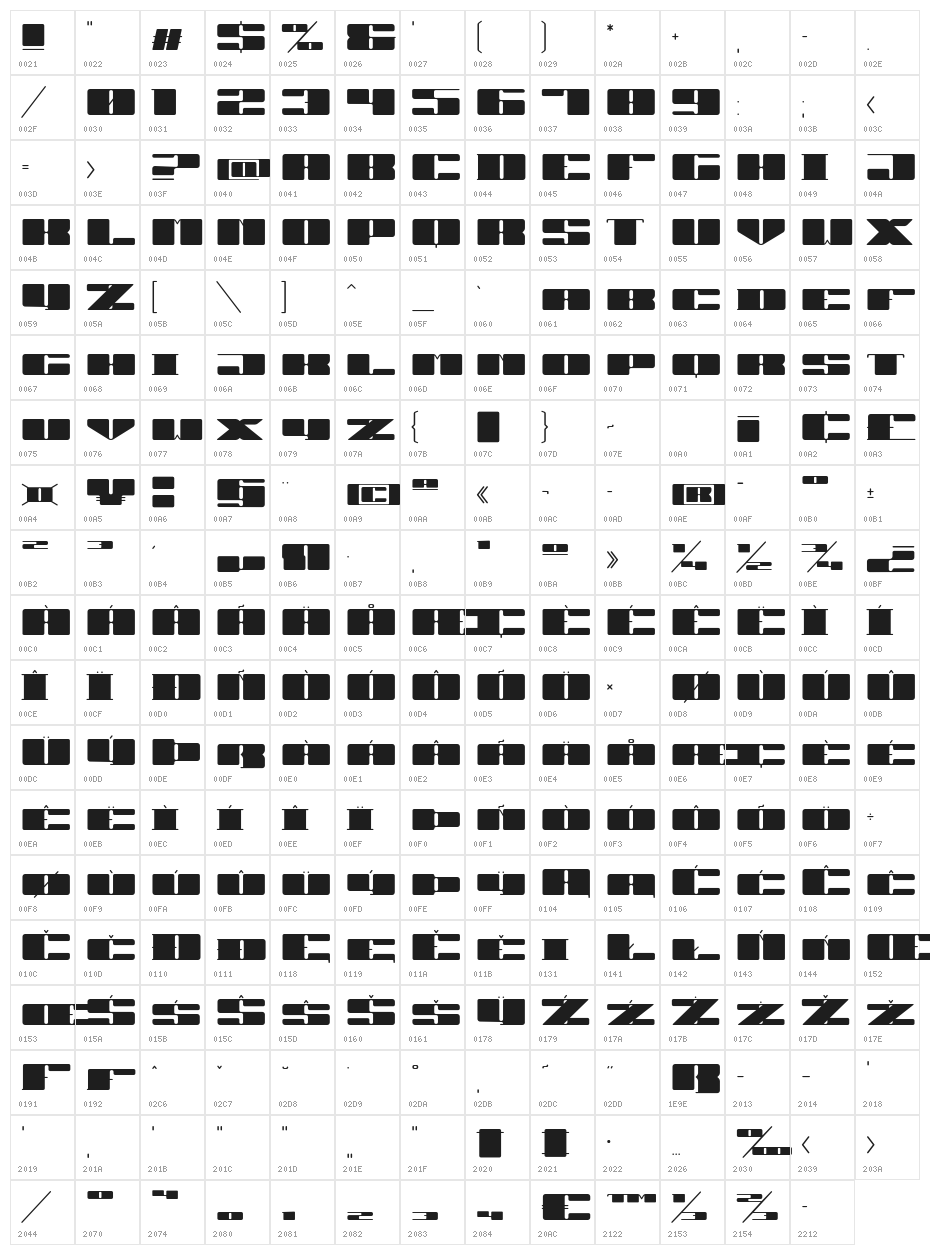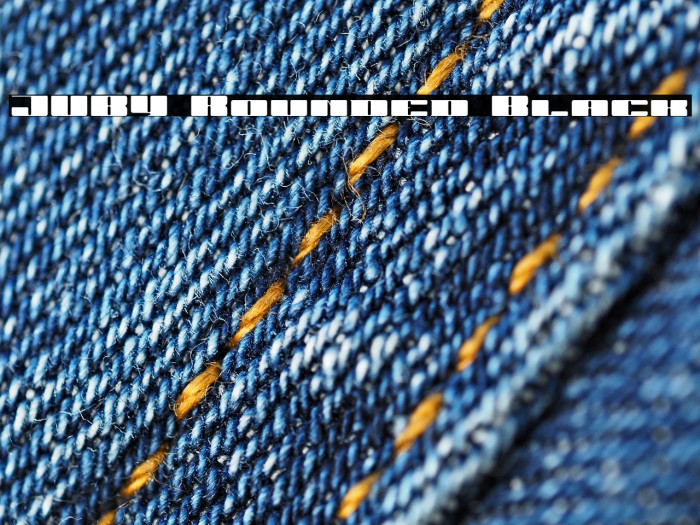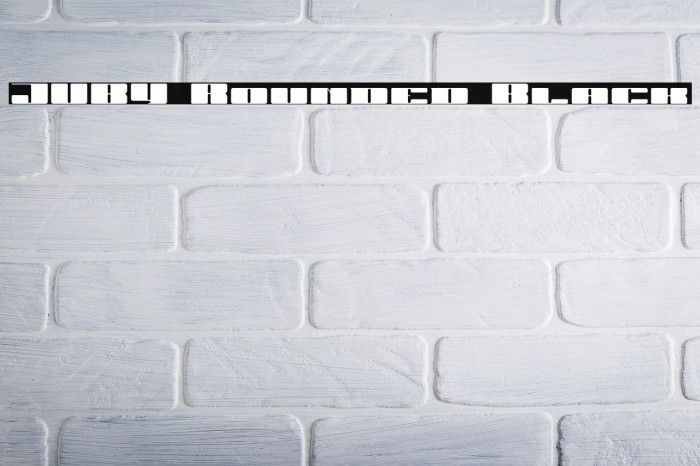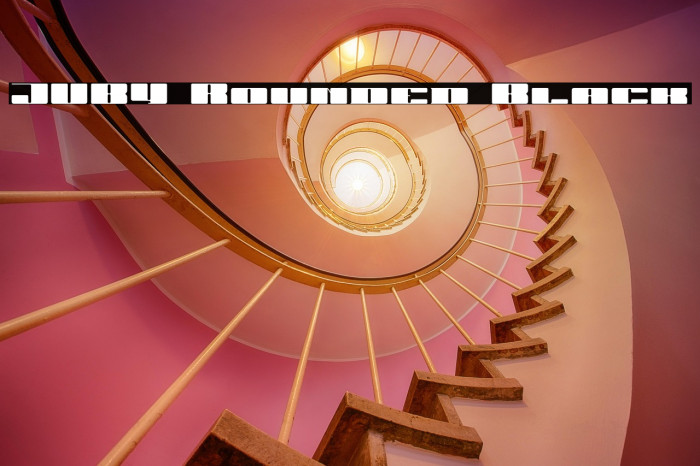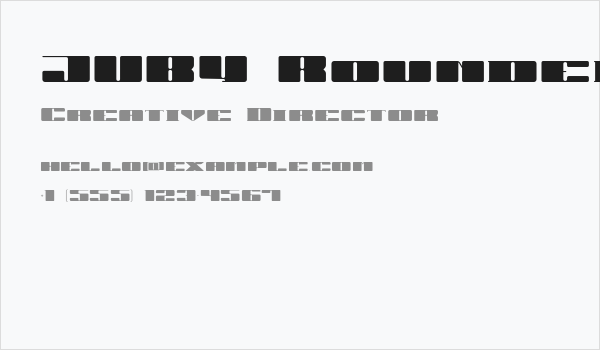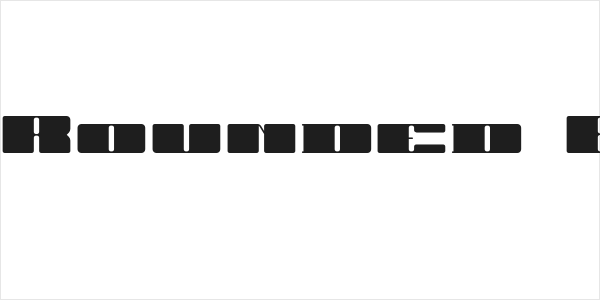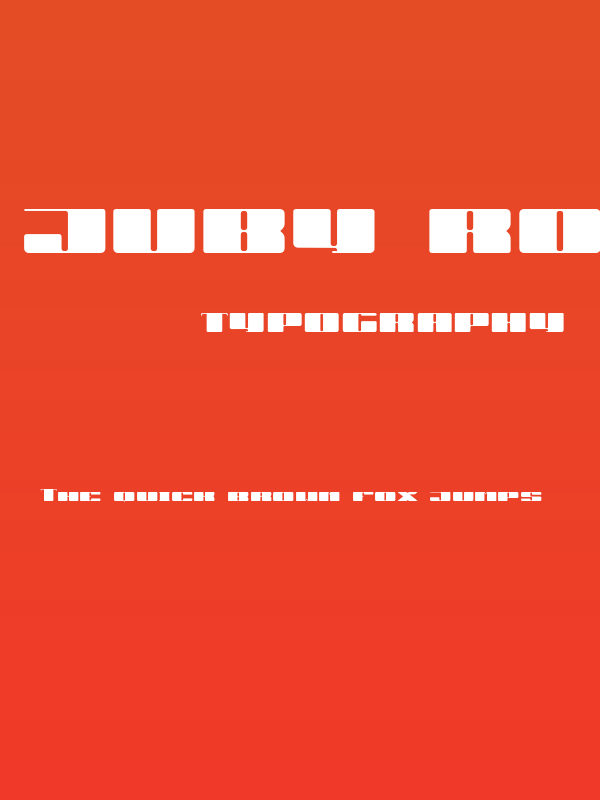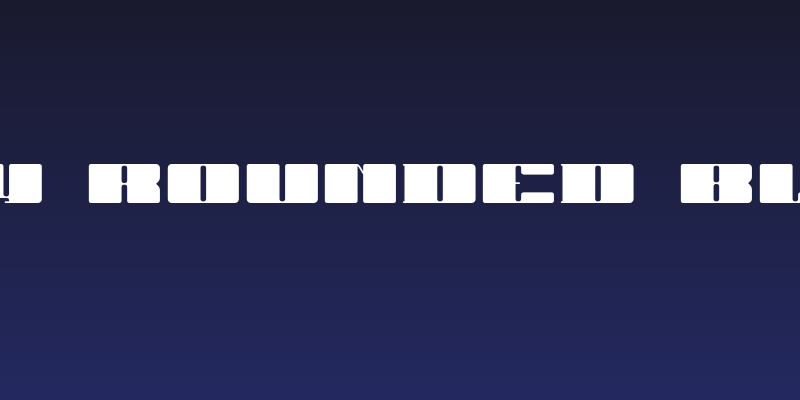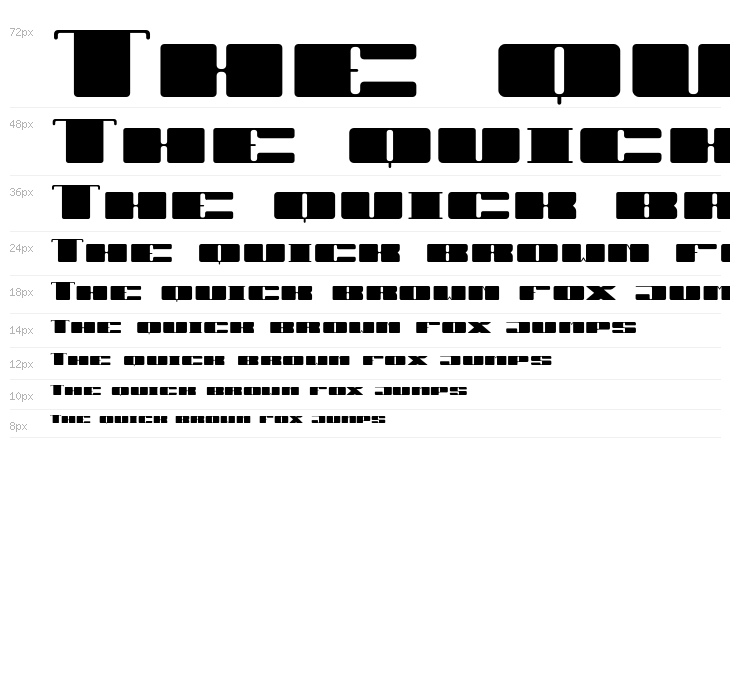
JUBY Rounded Black Font
JUBY Rounded Black Description
This font features a bold, geometric design with rounded edges, giving it a modern and futuristic appearance. The characters are constructed with thick, uniform strokes, creating a strong visual impact. The rounded corners soften the overall look, making it approachable while maintaining a sense of strength and stability. The font's structure is consistent across uppercase, lowercase, and numeral characters, ensuring a cohesive appearance. Special characters are designed with the same boldness and rounded style, integrating seamlessly with the rest of the font. This font is ideal for projects that require a contemporary and assertive aesthetic.
| Proposed Projects | Ideal for branding, headlines, posters, and digital media that require a modern and bold statement. |